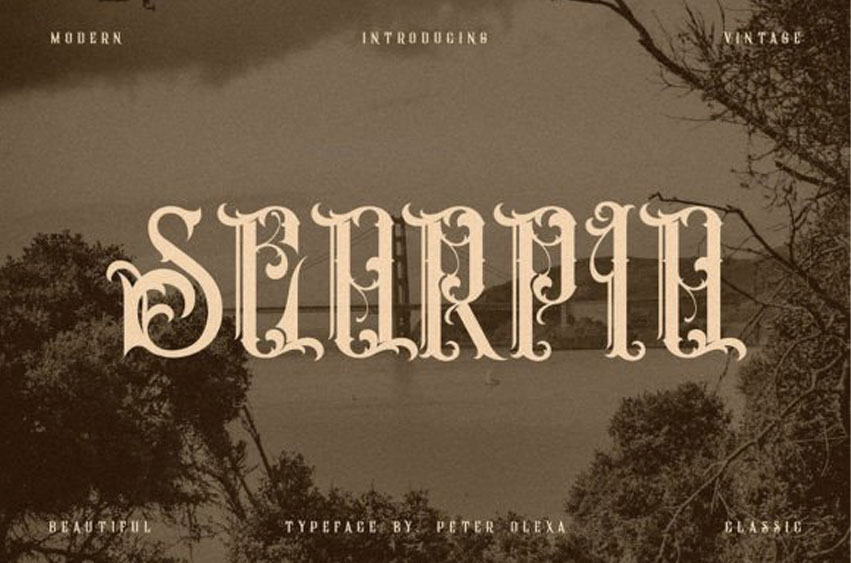
Scorpio Font
Scorpio Font is a vintage, ornamental serif font that is perfect for adding a classy, sophisticated touch to any design.
Its elaborate characters feature subtle curves and flourishes, producing an elegant, timeless appearance. Its delicate style is ideal for everything from high-end branding to wedding stationery.